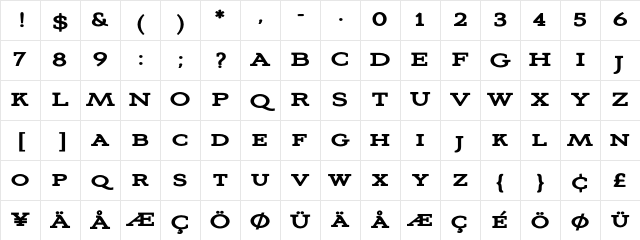
AvianoSlabBold features prominent, blocky serifs that give it a confident, grounded presence - equally at home in editorial settings and bold branding work. Its bold stroke weight gives it real presence on the page.
Pro Tip: Use AvianoSlabBold for headlines and subheadings where its slab serifs can make an impression. It also holds up well in mid-size body copy thanks to its sturdy construction.